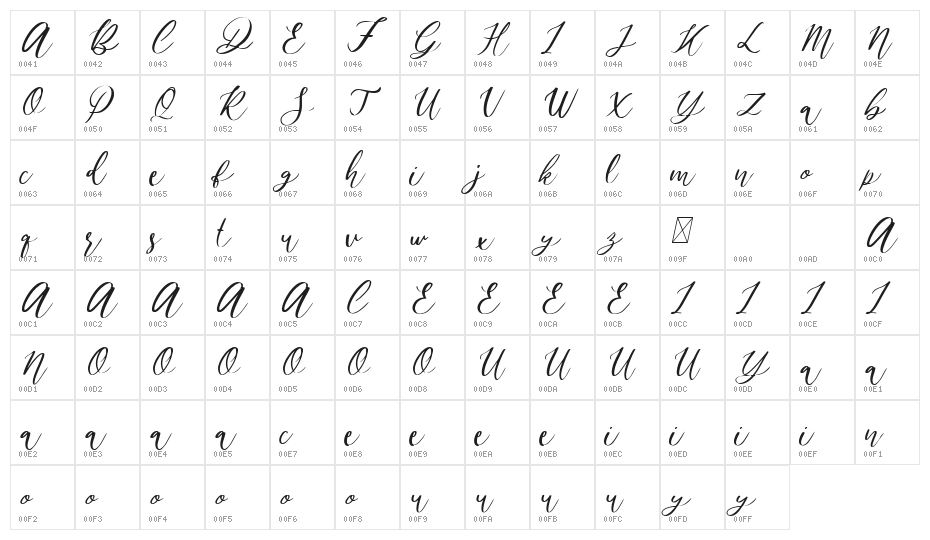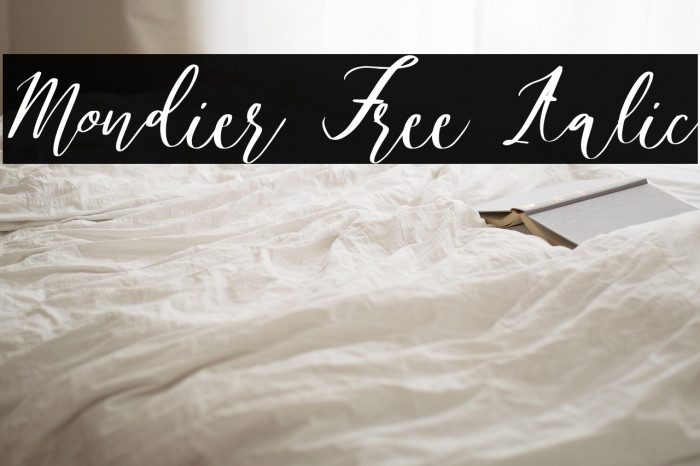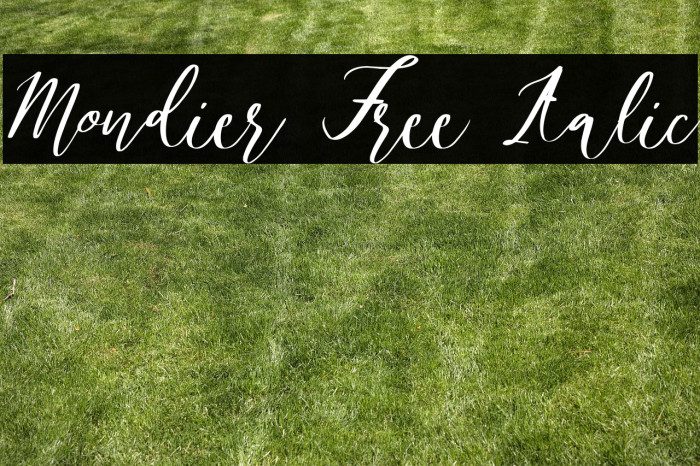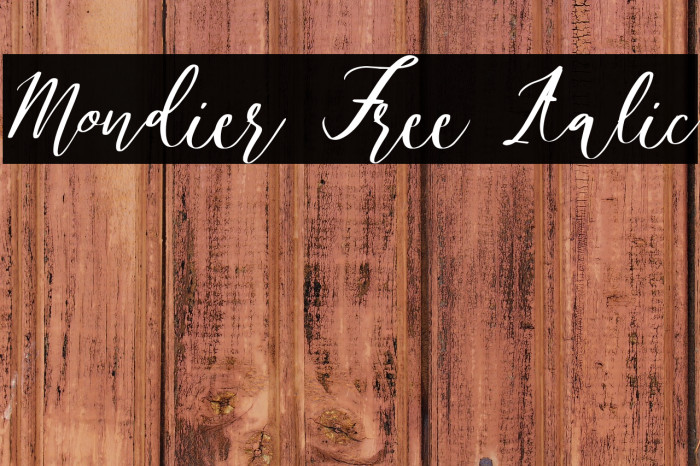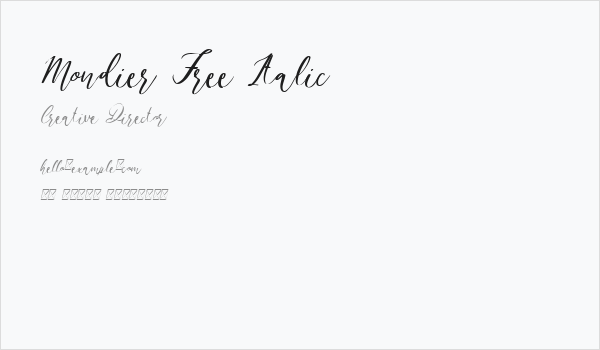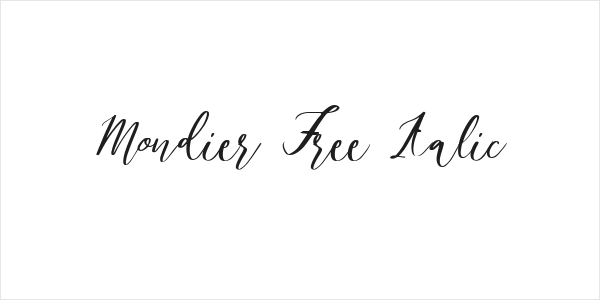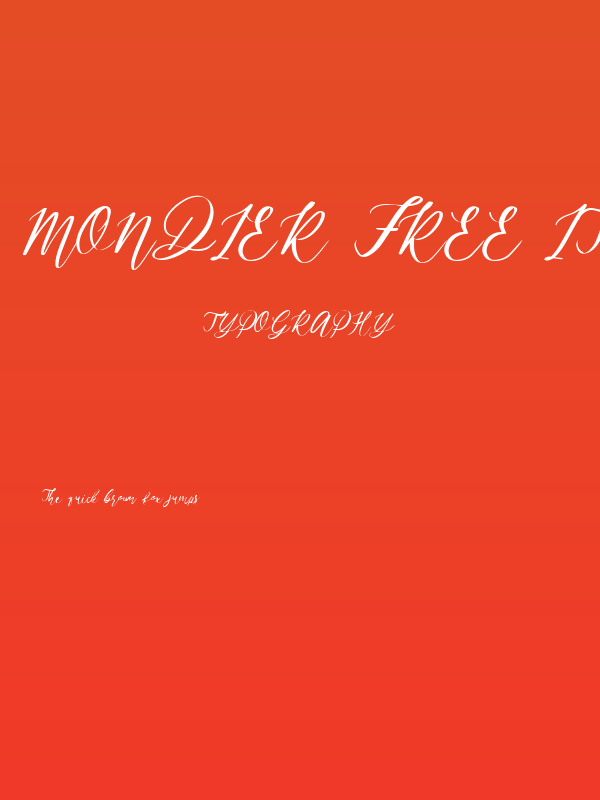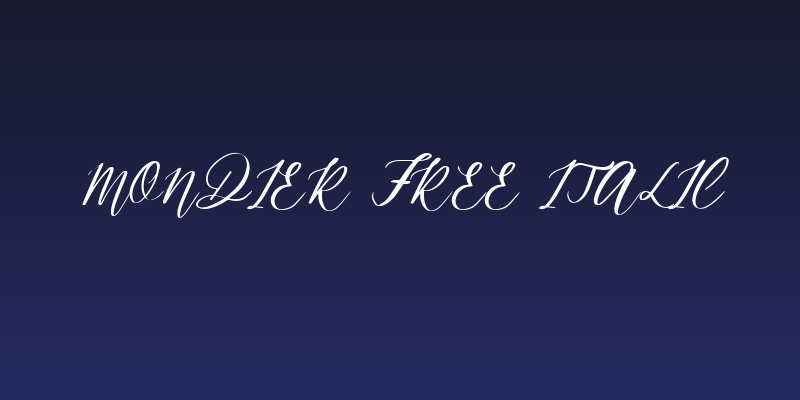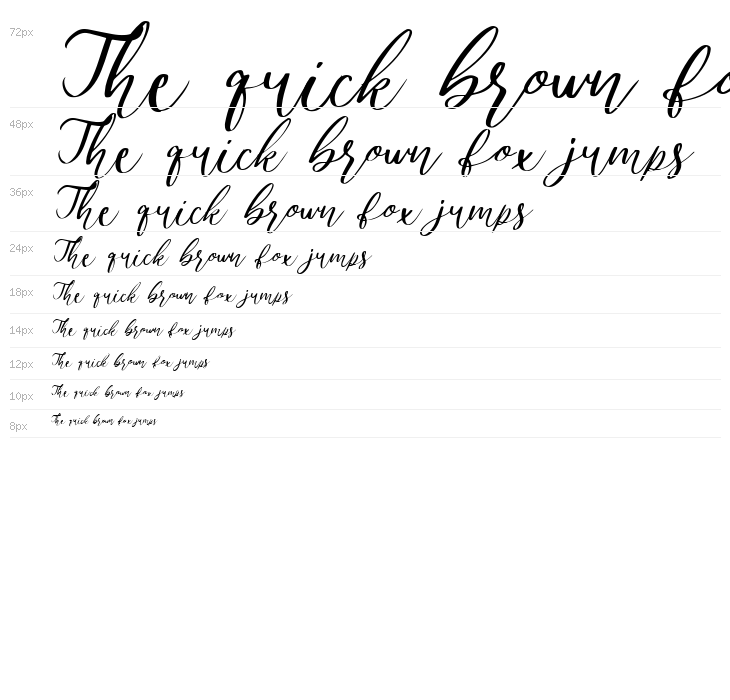
Mondier Free Italic Font
Mondier Free Italic Description
This font exudes elegance and fluidity, characterized by its cursive, flowing script style. The letters are connected, creating a seamless and continuous line that mimics the natural motion of handwriting. The strokes are varied, with some letters featuring thick, bold lines while others are more delicate and thin, adding a dynamic contrast. The overall appearance is sophisticated and artistic, making it ideal for projects that require a personal touch. The italic slant enhances the sense of movement and grace, making it suitable for invitations, greeting cards, and other creative endeavors.
Overall StyleElegant
Use CaseInvitations, Artistic projects
Proposed ProjectsIdeal for wedding invitations, greeting cards, personal branding, and artistic projects.